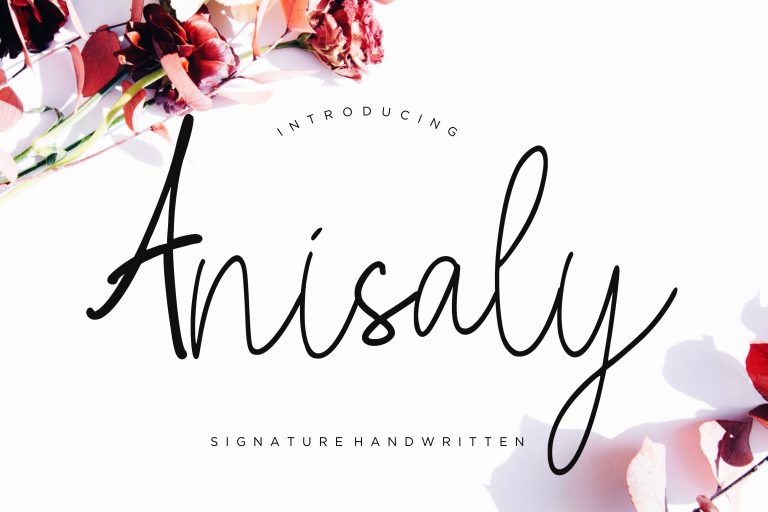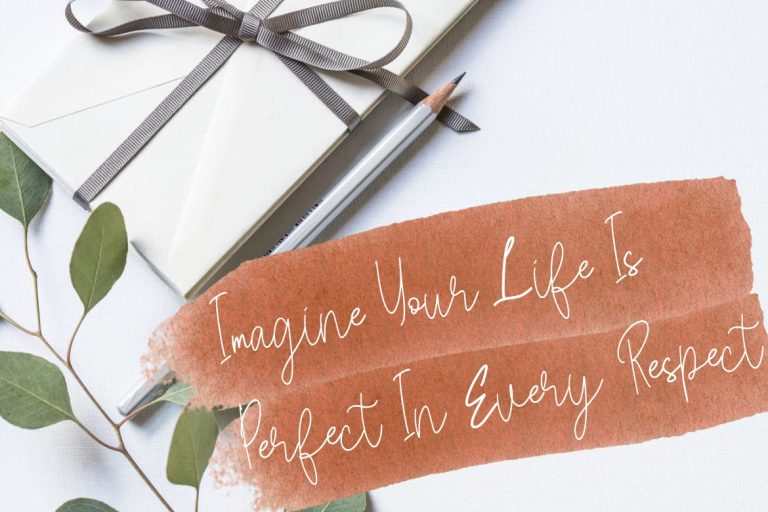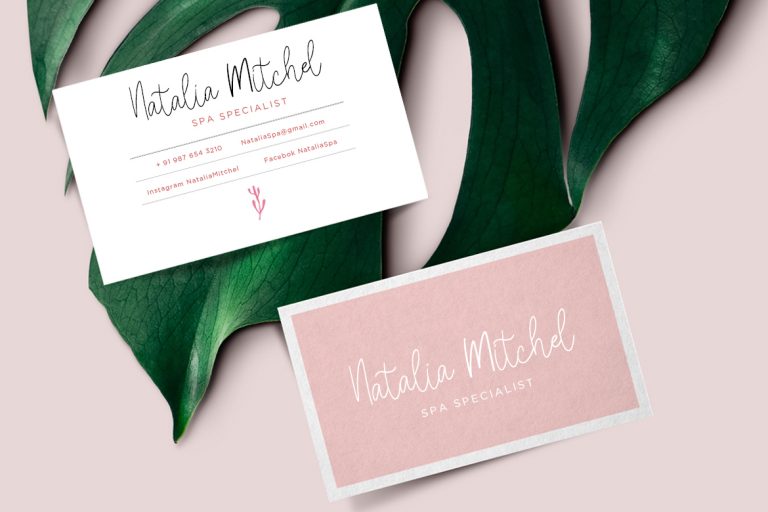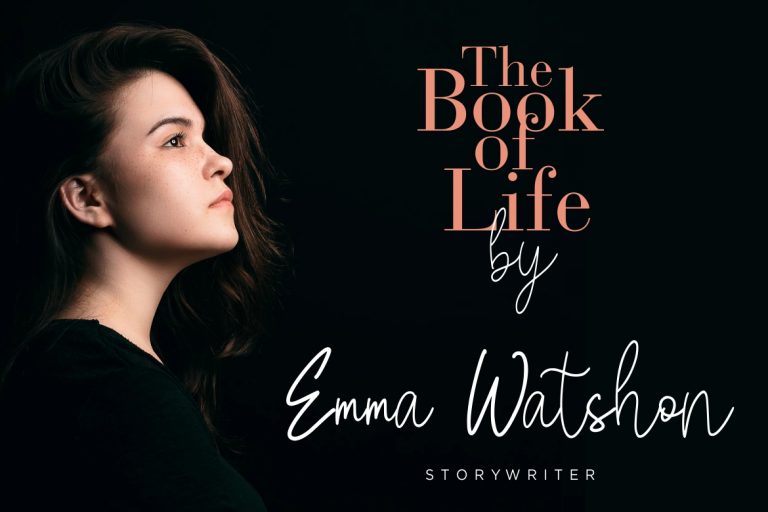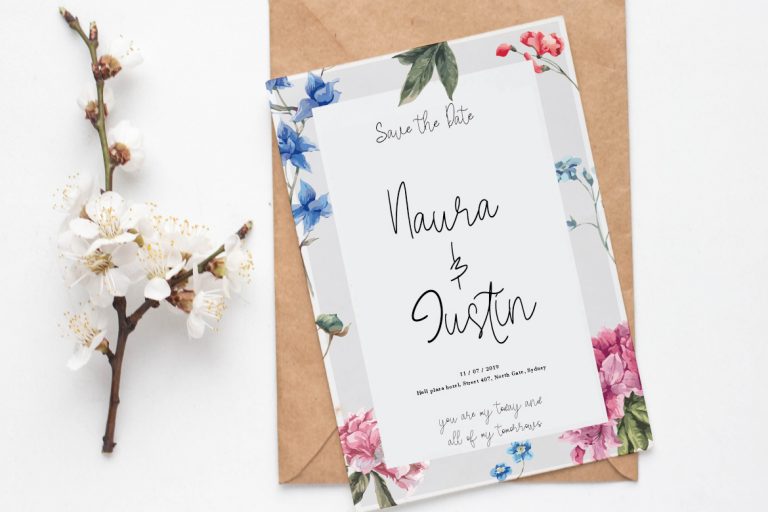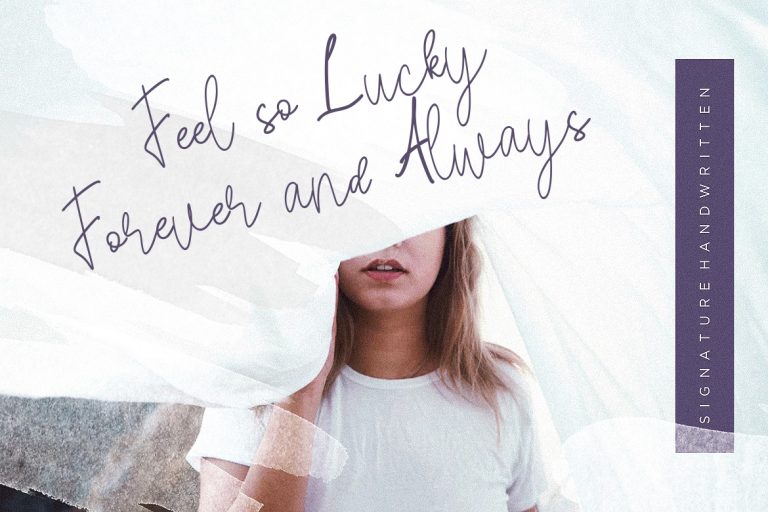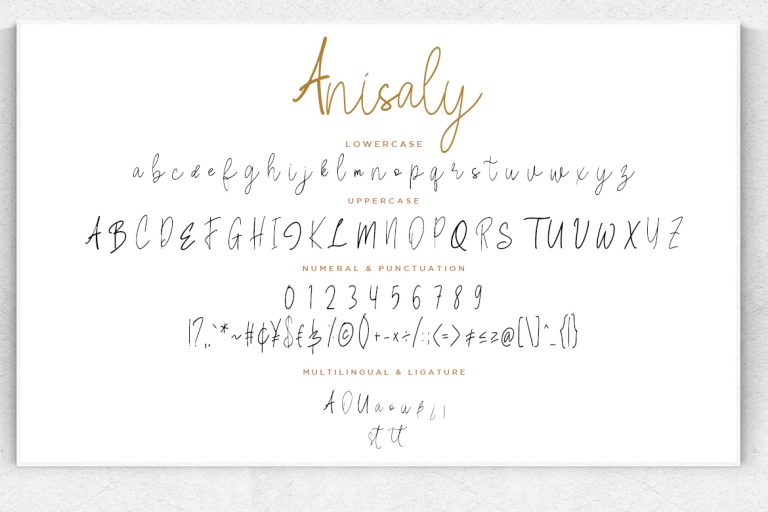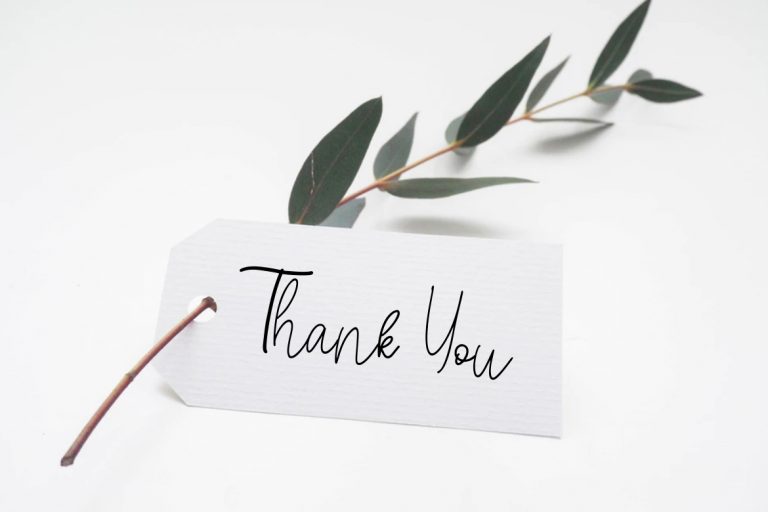
Anisaly is signature handwritten script font with natural flow.
Anisaly is perfect for branding projects, logo, wedding designs, social media posts, advertisements, product packaging, product designs, label, photography, watermark, invitation, stationery and any projects that need handwriting taste.
- Ligature
- Fonts include multilingual support for; ä ö ü Ä Ö Ü ß ¿ ¡
Anisaly Script